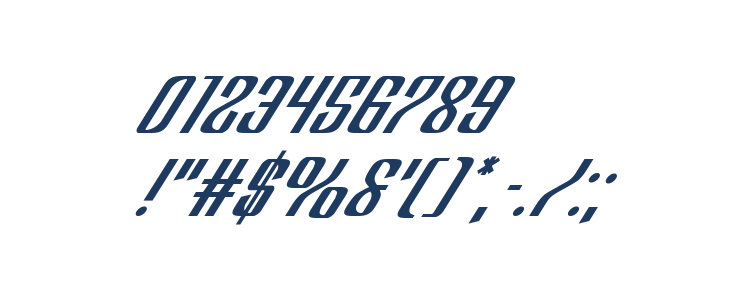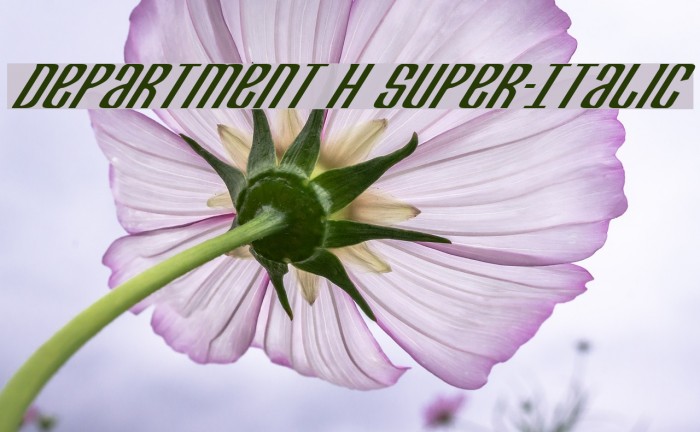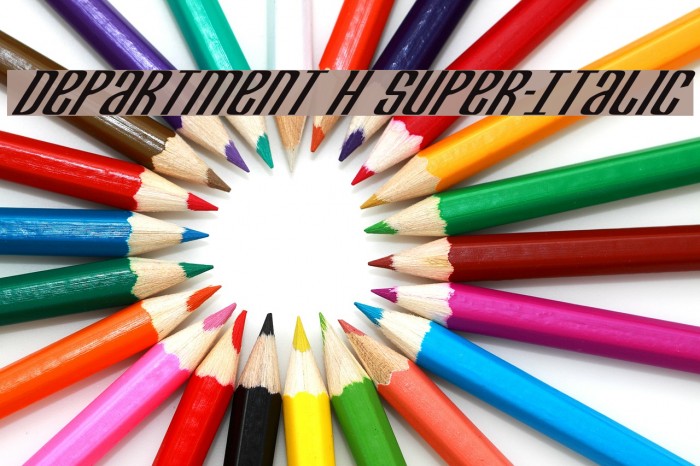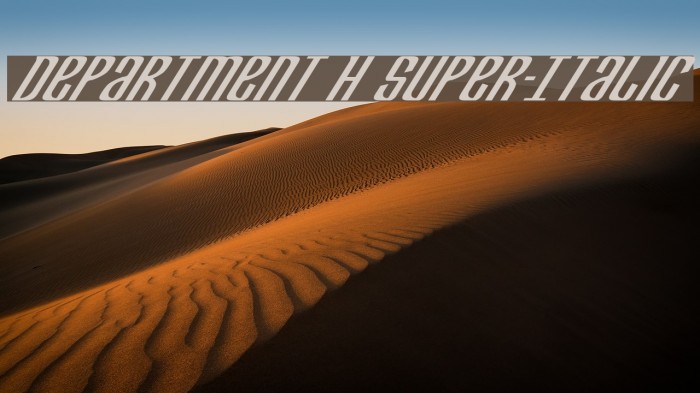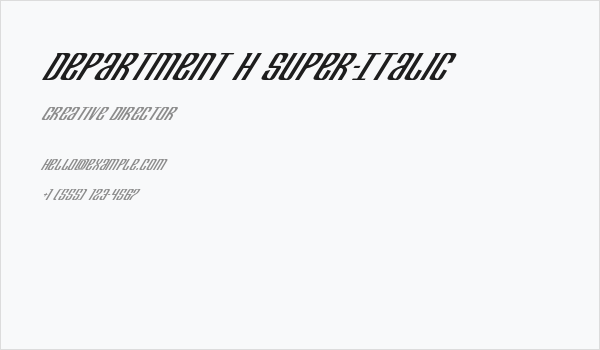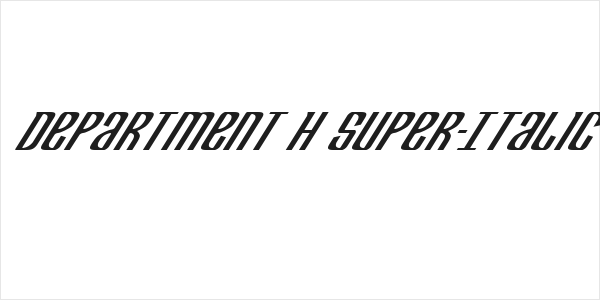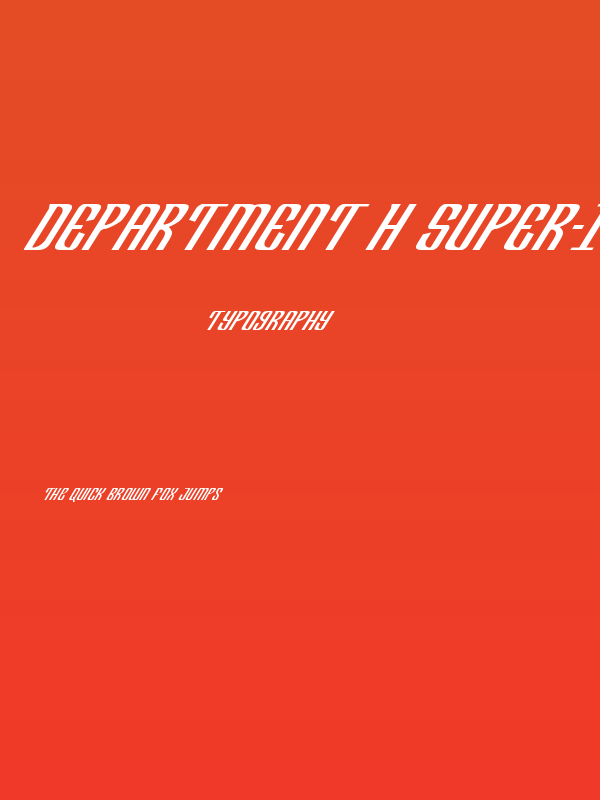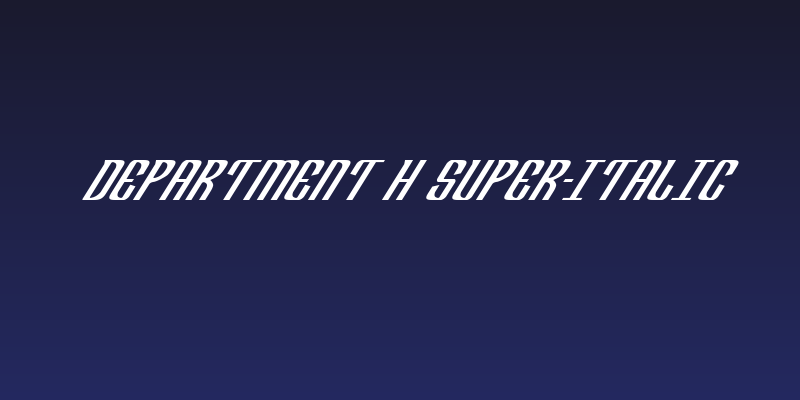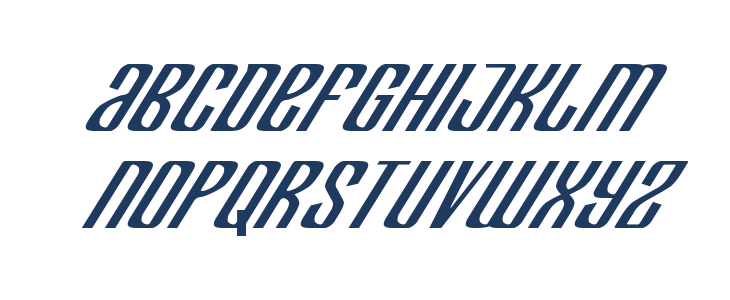
Department H Super-Italic Font
Department H Super-Italic Description
This font features a dynamic and energetic style with a pronounced italic slant, giving it a sense of motion and speed. The characters are bold and condensed, with sharp, angular edges that convey a modern and futuristic aesthetic. The uppercase and lowercase letters maintain a consistent style, with a uniform stroke width that enhances readability. The numerals and special characters are designed to match the overall sleek and streamlined appearance, making them suitable for a variety of design applications. The font's unique style makes it ideal for projects that require a bold and impactful visual presence.
| Use Case | Headlines, Logos, Advertising |
| Proposed Projects | Ideal for sports branding, automotive designs, tech-related projects, and dynamic advertising campaigns. |